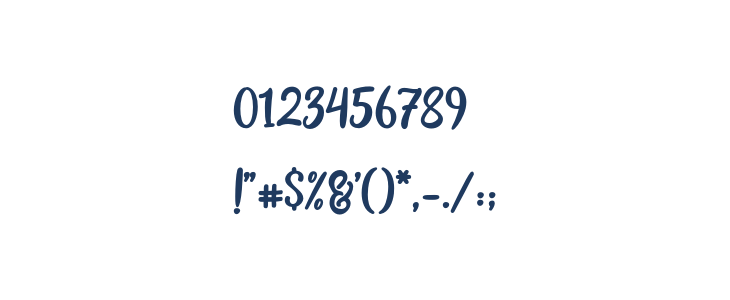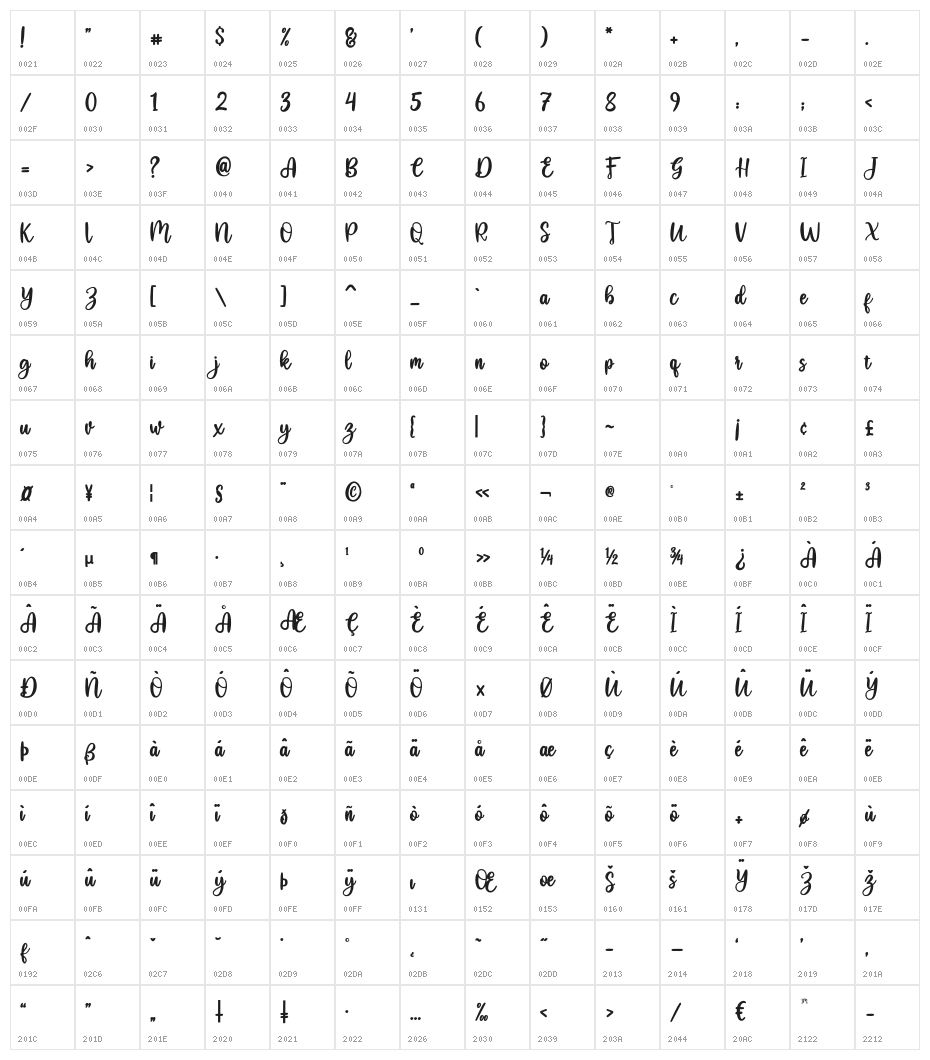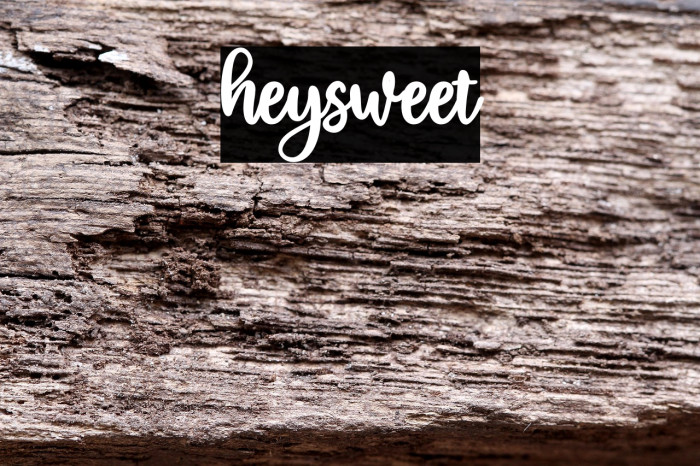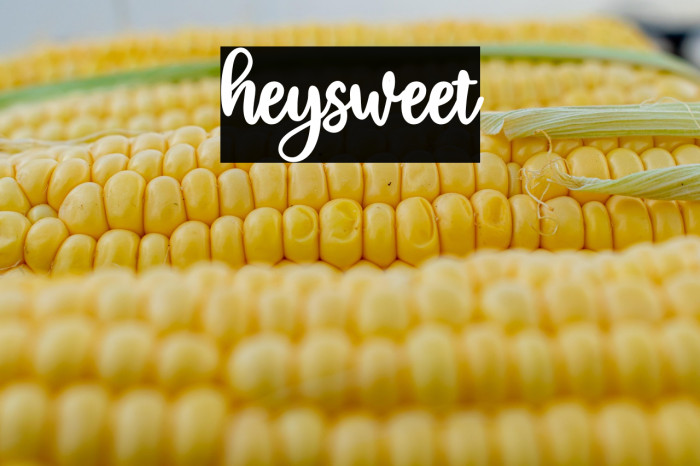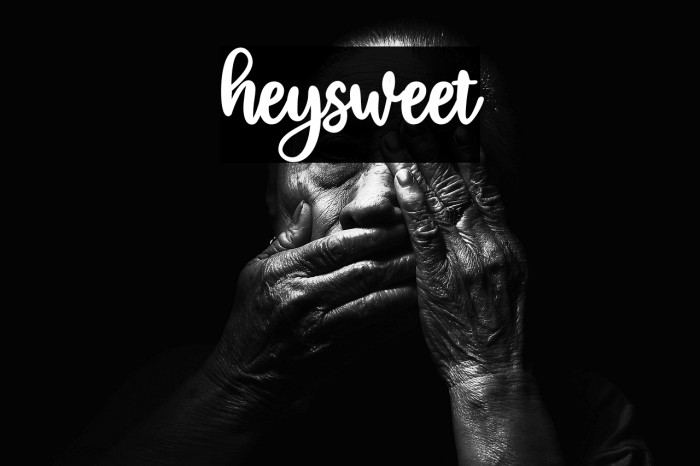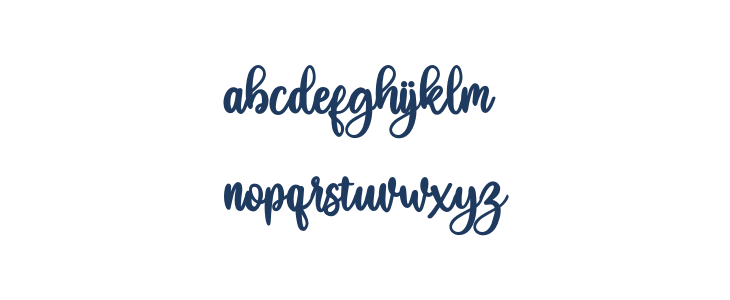
heysweet Font
heysweet Description
This font features a playful and whimsical script style with a handwritten appearance. The letters are connected in a flowing manner, giving it a lively and dynamic feel. The strokes are bold and rounded, providing a sense of warmth and friendliness. The uppercase letters maintain a consistent height, while the lowercase letters have a slight slant, adding to the casual and informal vibe. The numerals and special characters are designed to match the overall style, ensuring a cohesive look across all elements. This font is perfect for projects that require a personal touch or a fun, approachable aesthetic.
Use CaseLogos, Headlines, Invitations
Proposed ProjectsGreeting cards, invitations, social media graphics, branding for creative businesses, and personal projects.